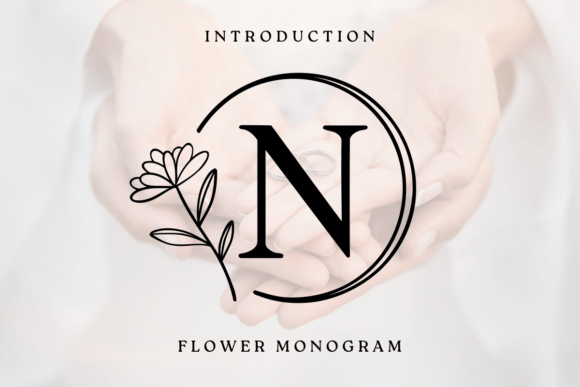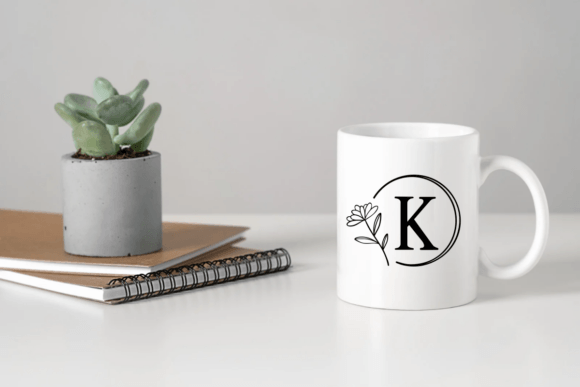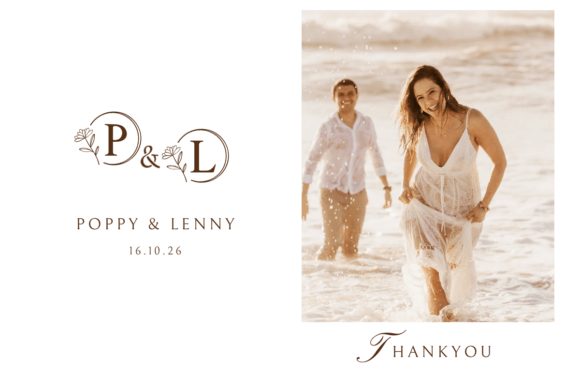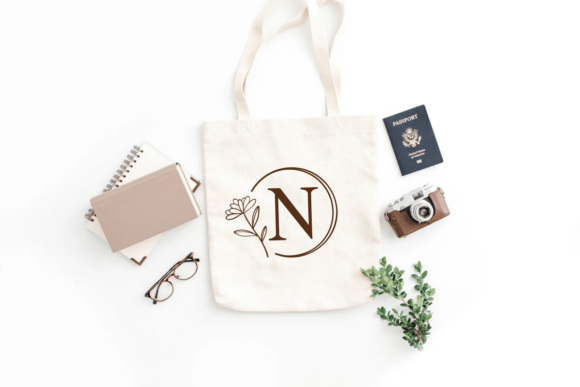
Flower Monogram Font
About the Flower Monogram Font
Unleash your creativity with Flower Monogram Font, a versatile font perfect for a wide range of applications. Flower Monogram is a pretty font that features decorative letters adorned with floral designs. Each letter is beautifully shaped and surrounded by flowers, making it perfect for adding a charming and personal touch to invitations, cards, and other projects. This font combines elegance with nature, giving your text a fresh and lovely look.
Flower Monogram excels in applications requiring a delicate, feminine touch. It’s ideal for wedding invitations, branding for floral businesses, or packaging for beauty products. Use it sparingly for short headlines or impactful phrases; its decorative nature makes it unsuitable for body text or UI elements where readability is paramount.
The font’s inherent elegance pairs well with clean sans-serif fonts like Montserrat or Lato for a balanced contrast. For a more whimsical feel, consider pairing it with a script font such as Great Vibes, but use it subtly as an accent. Avoid pairing it with heavy or geometric sans-serifs, which would clash with its organic forms.
Flower Monogram projects a charming, romantic personality, best suited for brands and projects conveying sophistication and a connection to nature. Its decorative style should be employed thoughtfully, as overuse could overwhelm the design.